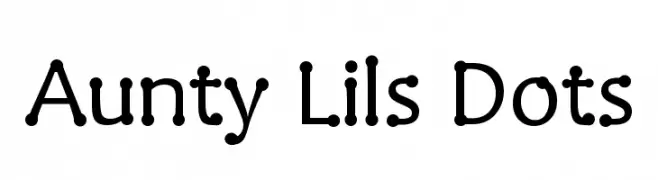
( Banyumili Studio - creativemarket.com/banyumili )
A stylish script font with elegant, flowing cursive strokes.
( Caveras - Cliff Modes - caveras.net )
A pixelated, retro-style font with a blocky, digital appearance.
( Chequered Ink - chequered.ink/ )
A bold, geometric font with a futuristic, stencil-like design.
( Chequered Ink - chequered.ink/ )
A bold, modern sans-serif font with a distressed background for a striking effect.
( Chequered Ink - chequered.ink/ )
A modern, geometric font with rounded edges and consistent character width.
( Anthony Robinson - www.redbubble.com/people/anfa/portfolio )
A bold, geometric font with a futuristic and industrial style.
( Bangkit Tri Setiadi - creativemarket.com/bangkit.tri.setiadi )
A graceful script font with fluid, interconnected strokes and ornate flourishes.
( Anthony Robinson - www.redbubble.com/people/anfa/portfolio )
A decorative, thorny font with gothic influences and bold, intricate details.
( Carlos Silva - www.behance.net/lusidesign )
A bold, geometric font with a modern, futuristic aesthetic.
( Chequered Ink - chequered.ink/ )
A modern, geometric font with clean lines and angular shapes.
( APG Studios - Anna Gustafson - www.apgstudios.com )
A playful, bold font with rounded edges and a hand-drawn feel.
( Ana - www.anasfonts.com/ )
A bold, flowing script font with smooth, cursive letterforms.
( Ana - www.anasfonts.com/ )
A bold, flowing script font with elegant flourishes and interconnected letters.
( 7NTypes - Situjuh Nazara - 7ntypes.com )
A playful, bold font with rounded edges and a hand-drawn look.
( Chequered Ink - chequered.ink/ )
A bold, geometric font with a futuristic and modern style.
( Arianna Fotin )
A bold, decorative font with geometric and abstract patterns within each character.
( Amanda Fox )
A playful, hand-drawn font with a whimsical and informal style.
( Bangkit Tri Setiadi - creativemarket.com/bangkit.tri.setiadi )
A bold, flowing script font with dynamic, connected letters.
( 7NTypes - Situjuh Nazara - 7ntypes.com )
A playful and casual font with rounded, smooth letterforms.
( 7NTypes - Situjuh Nazara - 7ntypes.com )
A lively and dynamic italic font with smooth, flowing curves.
( Chequered Ink - chequered.ink/ )
A bold, geometric display font with a futuristic and angular design.
( 7NTypes - Situjuh Nazara - 7ntypes.com )
A playful, handwritten-style font with bold, rounded strokes.
( 7NTypes - Situjuh Nazara - 7ntypes.com )
A playful, bold italic font with smooth, flowing curves.
( Bolahool Graphics )
A bold, modern serif font with angular serifs and a dynamic slant.
( Bolahool Graphics )
A bold, 3D font with geometric structure and shadow effects.
( Béla Frank - belafrank.com )
A bold, geometric font with tall, narrow characters and a modern style.
( Bangkit Tri Setiadi - creativemarket.com/bangkit.tri.setiadi )
A bold, dynamic script font with flowing, cursive letterforms and elegant loops.
( Attype Studio - Fadli Ramadhan Iskandar - thehungryjpeg.com/attype-studio/ )
A playful, hand-drawn font with a whimsical and casual style.
( Aaron Amar - www.behance.net/aaronamar )
A modern, geometric font with tall, narrow characters and a sleek design.
( Aaron Amar - www.behance.net/aaronamar )
A tall, narrow font with a modern and sleek design, featuring consistent stroke width and sharp angles.
( Aaron Amar - www.behance.net/aaronamar )
A tall, narrow font with sharp serifs and high contrast, blending modern and vintage styles.
( Anthony Robinson - www.redbubble.com/people/anfa/portfolio )
A bold, decorative font with a stencil-like, industrial design.
( APG Studios - Anna Gustafson - www.apgstudios.com )
A bold, textured font with a playful, distressed appearance.
( 7NTypes - Situjuh Nazara - 7ntypes.com )
A bold, handwritten font with a playful and energetic style.